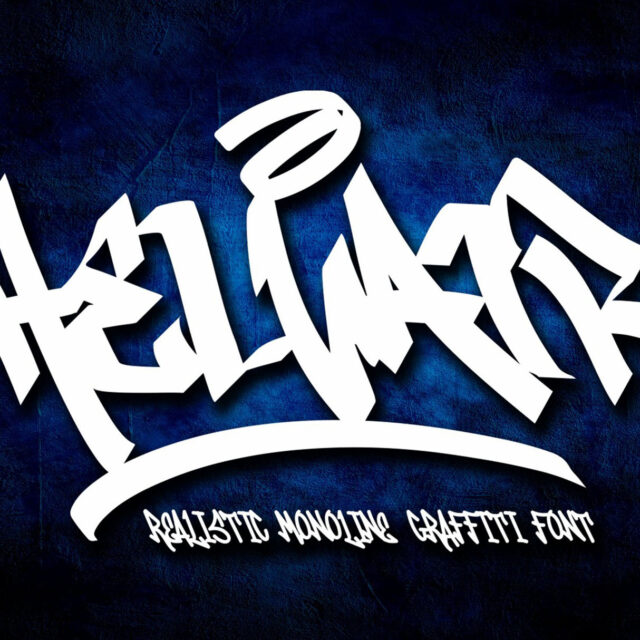
About Helvair
“Helvair” is a monoline graffiti font with sharp and pointed edges. Its sleek and edgy style captures the essence of street art, bringing a sense of urban flair to your designs. The pointed tips of the letters add a touch of dynamism and rebelliousness, making “Helvair” an ideal choice for projects that demand a bold and impactful typographic statement. Whether used for posters, logos, or apparel designs, this font will leave a lasting impression with its sharp and distinctive look.
- Uppercase
- Number And Punctuation
- Swash